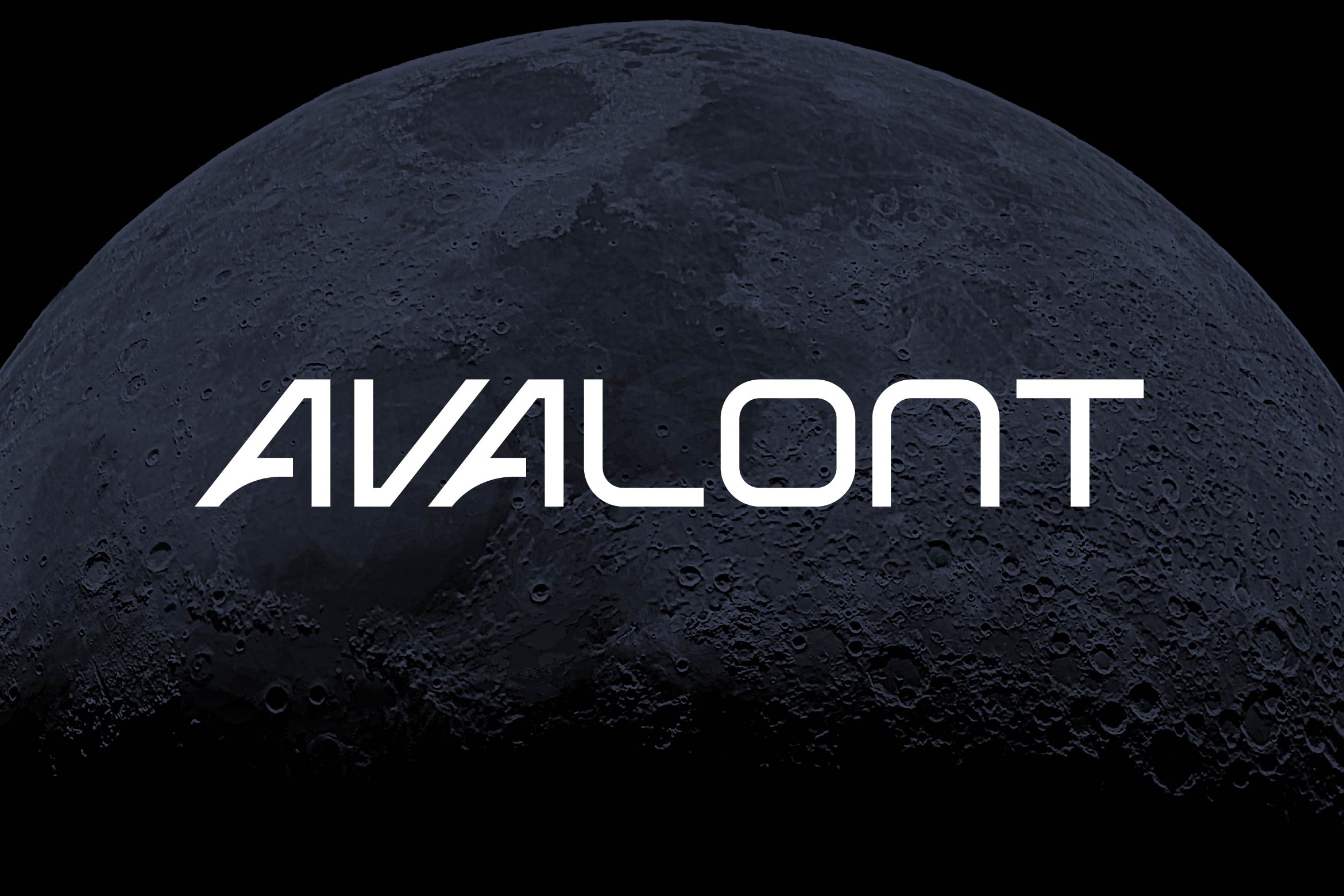
- Avalont Tech Logo Font
Avalont is a sleek and innovative tech font designed for the future. With its geometric forms, angular cuts, and modern sci-fi flair, Avalont is perfect for technology branding, digital interfaces, game titles, sci-fi posters, app UI, and futuristic product packaging.
Its sharp yet minimal style captures a high-tech aesthetic while maintaining excellent readability. Whether you’re designing for robotics, startups, artificial intelligence, or space-themed visuals, Avalont adds a cutting-edge presence to your typography.
The font includes uppercase and lowercase letters, numerals, punctuation, multilingual support, and stylish alternates for maximum creative flexibility.
Step into the future with Avalont — the tech font that combines precision, innovation, and bold digital energy.